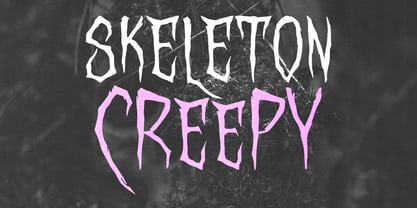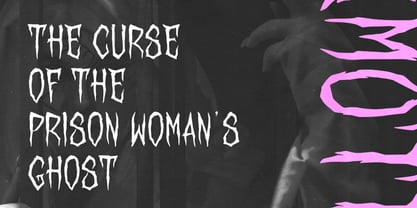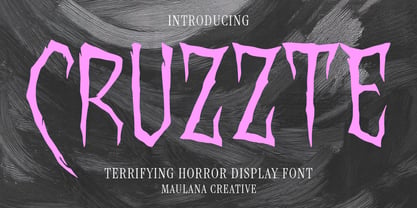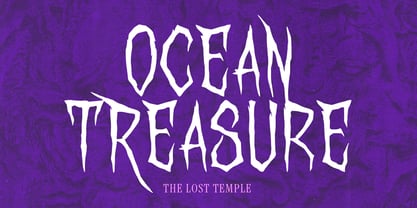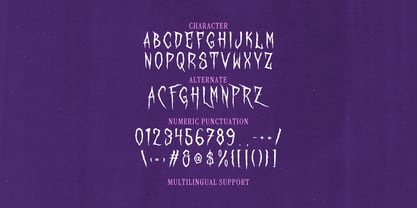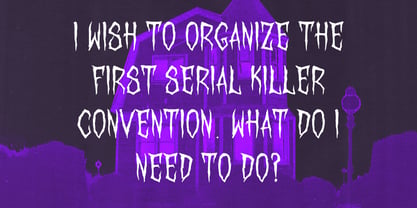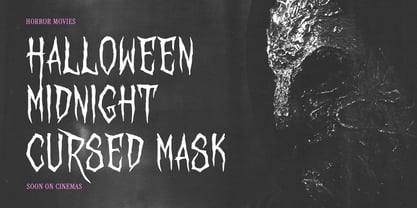
MC Cruzzte
by Maulana Creative
The MC Cruzzte Font Family was designed by Gilang Maulana and published by Maulana Creative. MC Cruzzte contains 1 styles. More about this family
Cruzzte is a scary and spooky display font designed to bring a chilling, bone-rattling aesthetic to your projects. With its jagged edges, twisted forms, and dripping-blood appearance, this typeface is perfect for designers looking to create high-impact, terrifying visuals. Inspired by classic horror movie, slasher flicks, and Gothic imagery, Cruzzte delivers a powerful sense of dread and mystery. The unique, aggressive design of each character ensures your message stands out and grabs the viewer's attention instantly. Perfect for: - Movie: Horror, thriller, Halloween, and suspense genres. - Album: Metal, rock, gothic, and dark electronic music. - Designs and Merch: Edgy, spooky, and alternative. - Event and Promotions: Haunted houses, Halloween parties, and horror conventions. - Branding: Escape rooms, spooky brand identities, and video games.
Designers: Gilang Maulana
Foundry: Maulana Creative